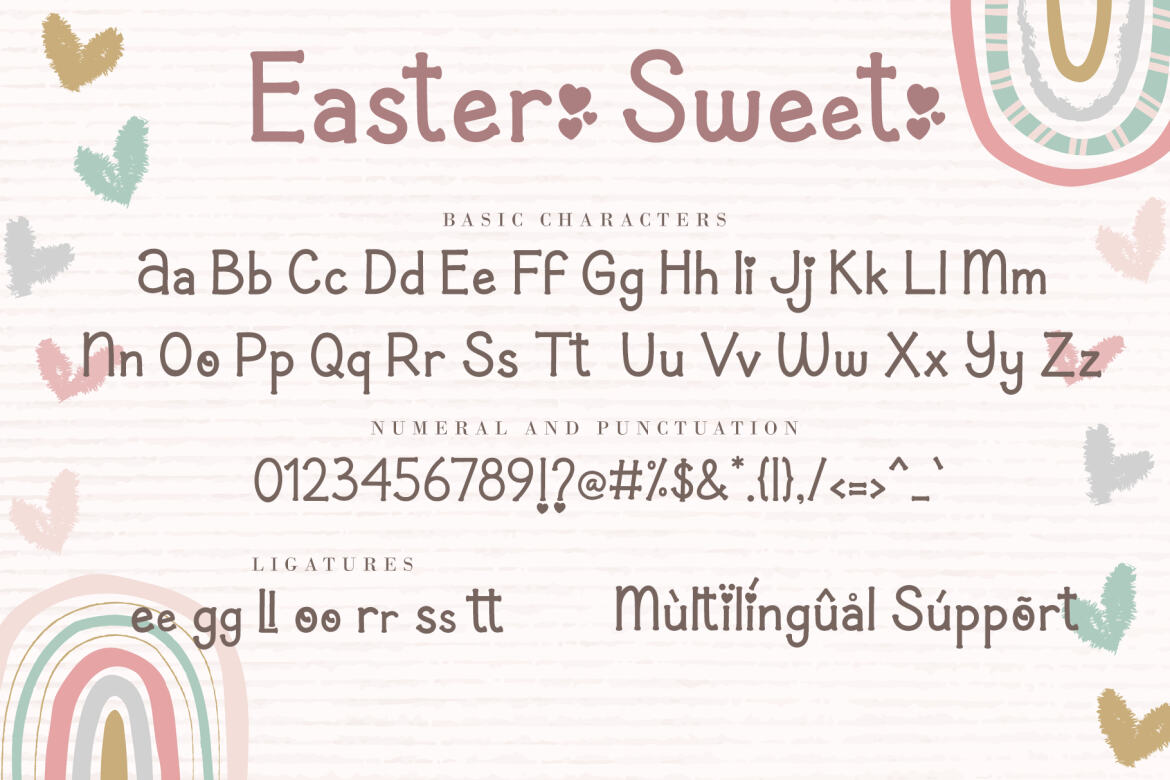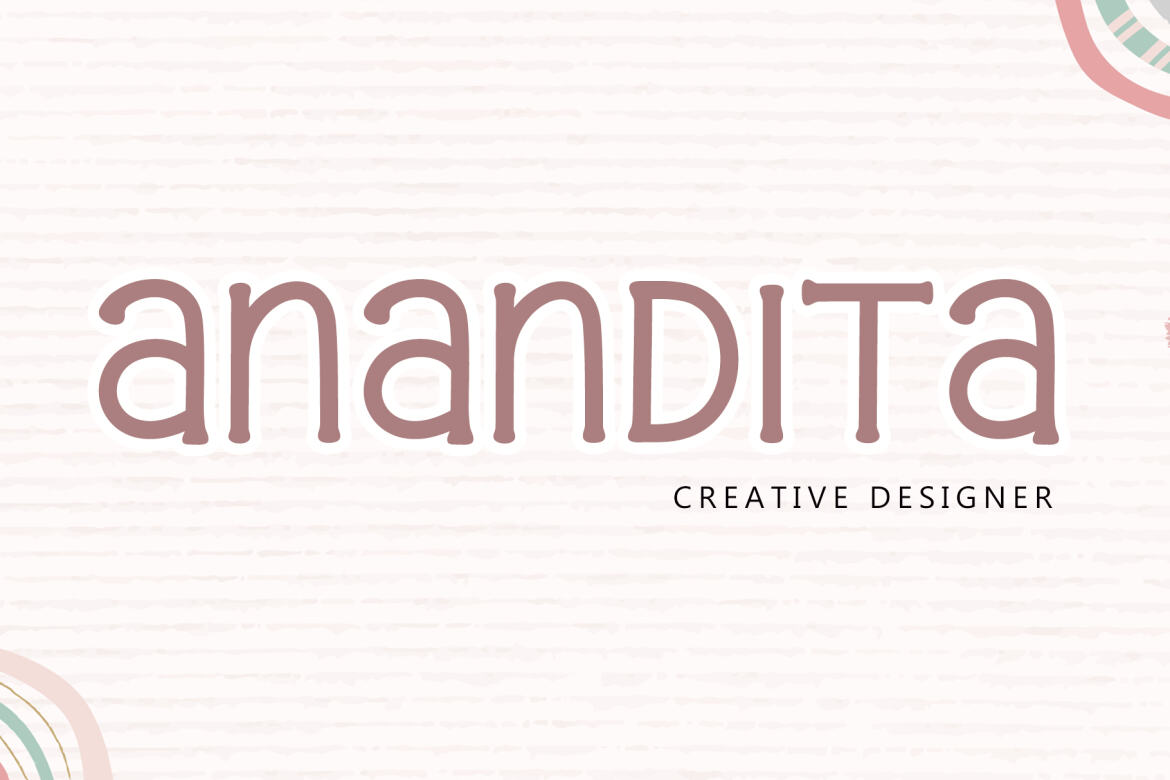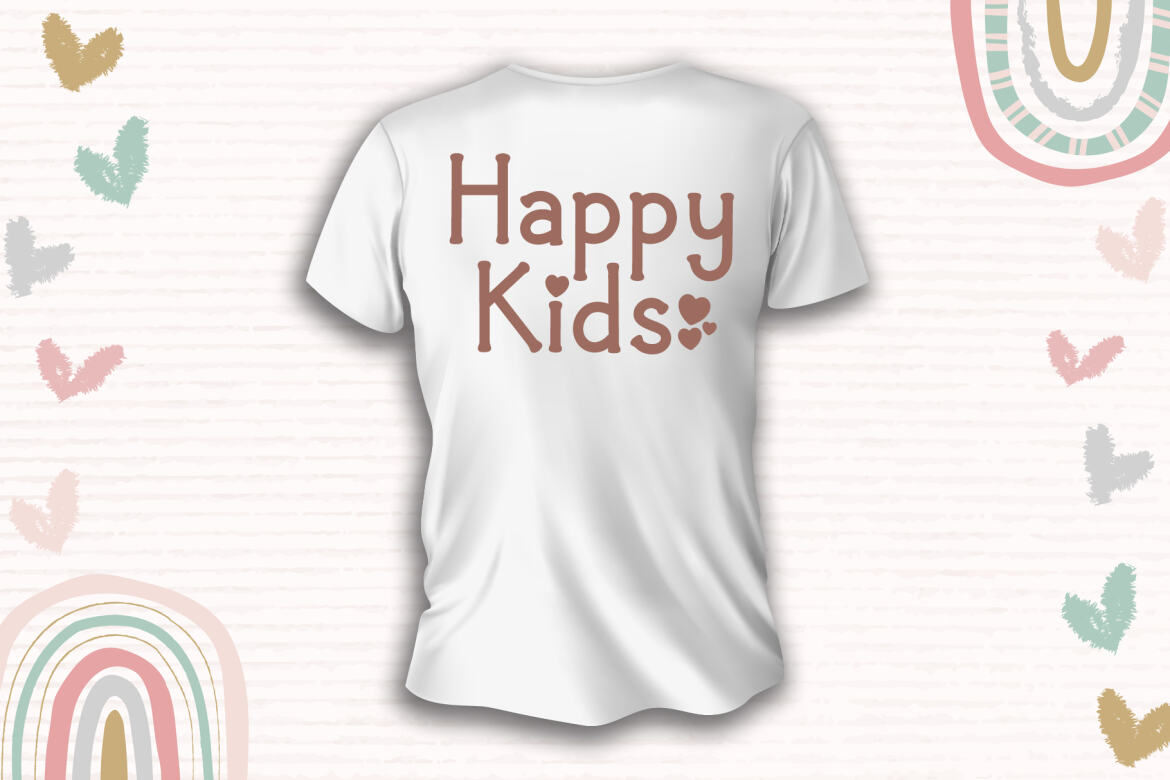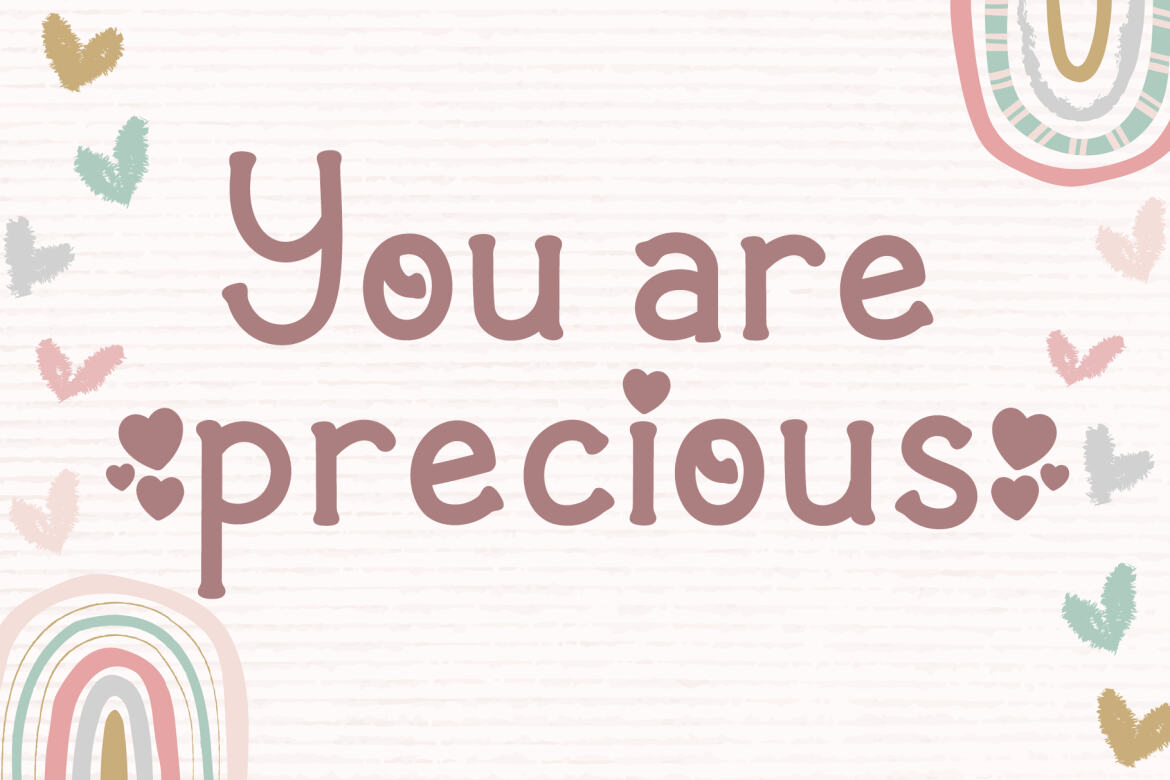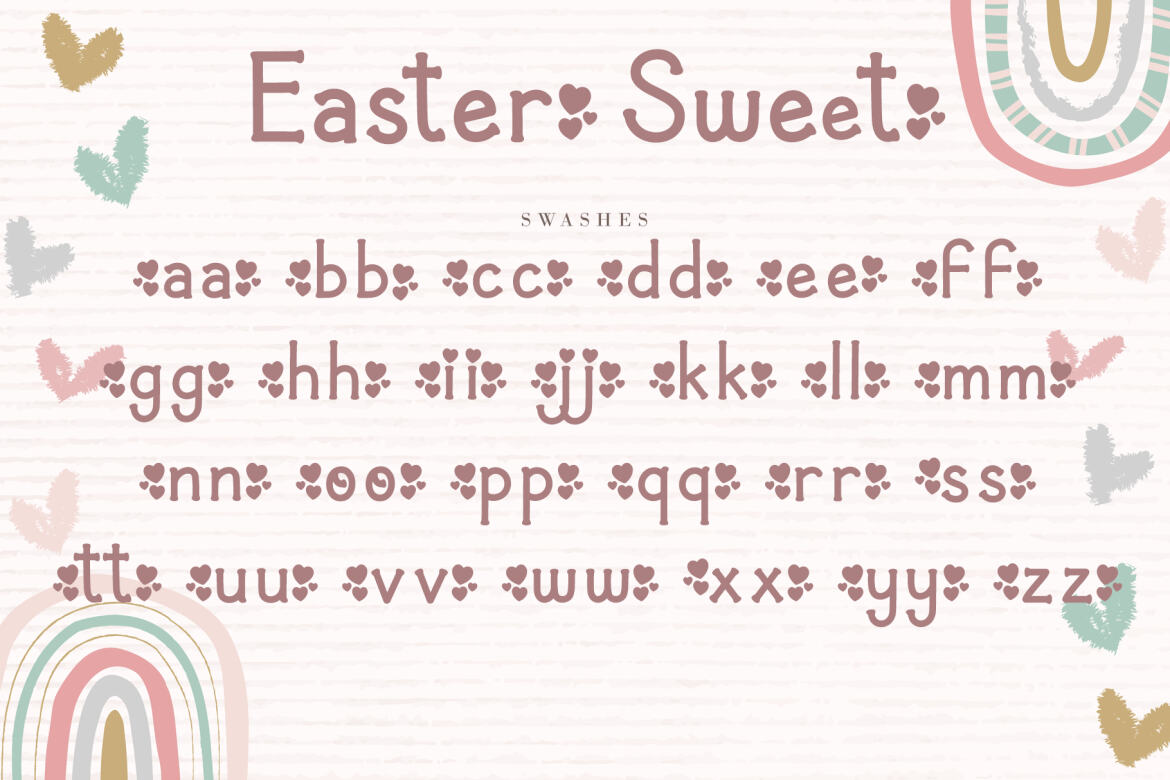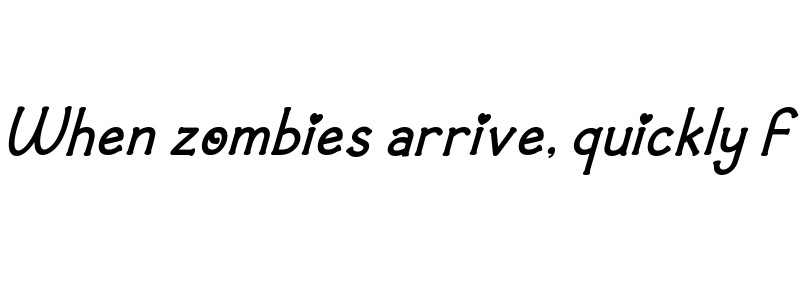
Easter Sweet FREE Font
Easter Sweet is a fun, quirky, and sweet serif font. No matter the topic, this font will be an incredible asset to your fonts’ library, as it has the potential to elevate any creation. This font is PUA encoded, which means you can access all of the glyphs and swashes with ease!
• ligatures, swashes & titiling
• support multilingual; ä ö ü ä ö ü ß ¿ ¡